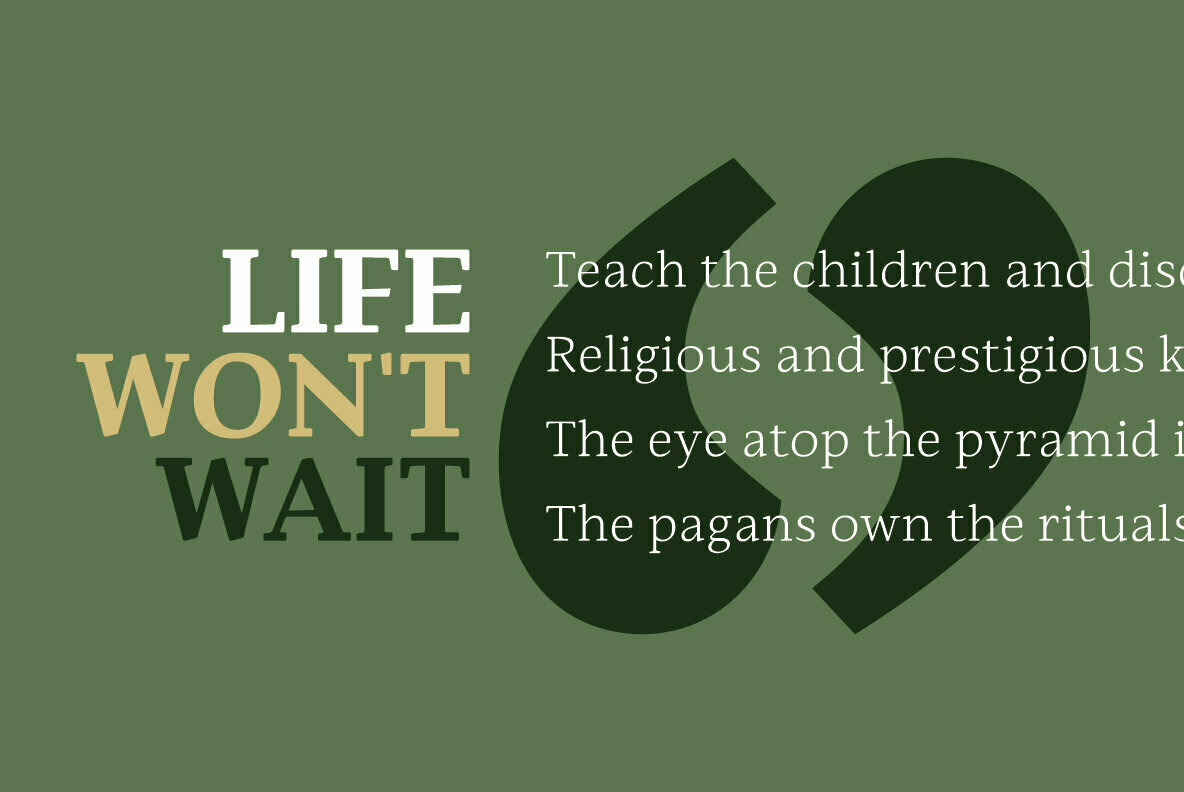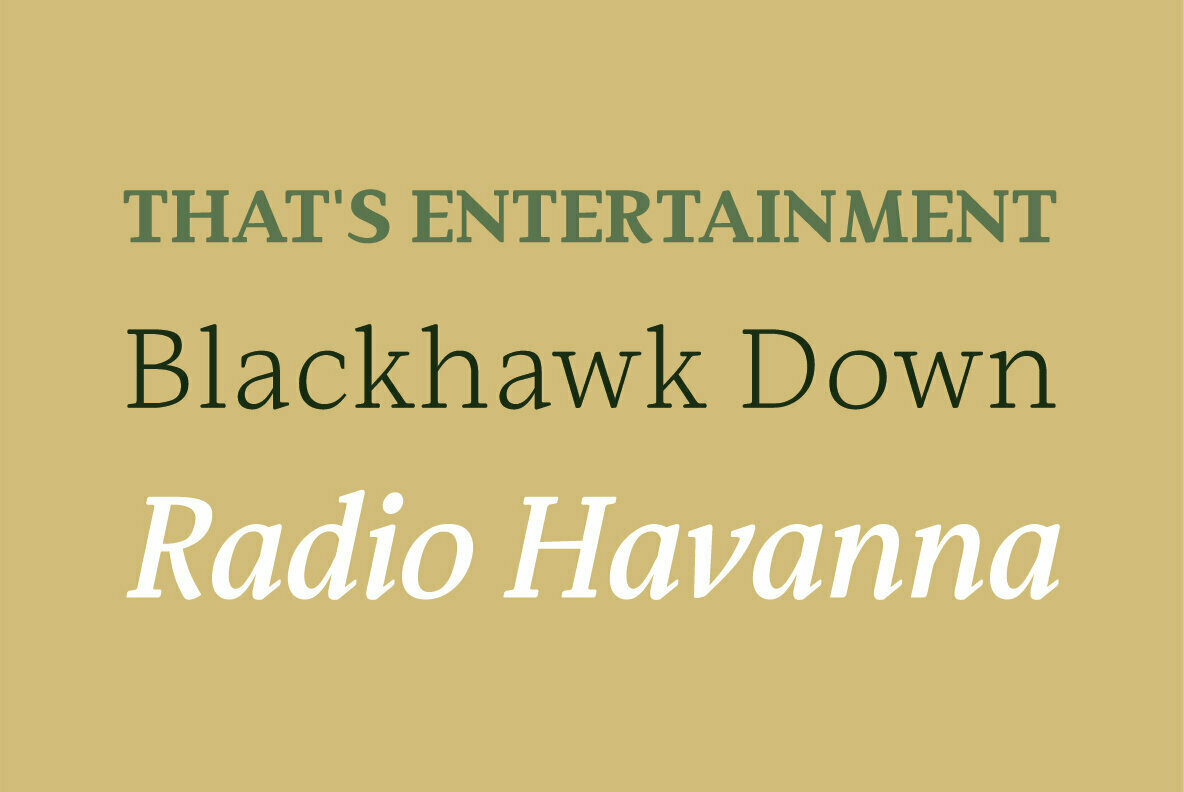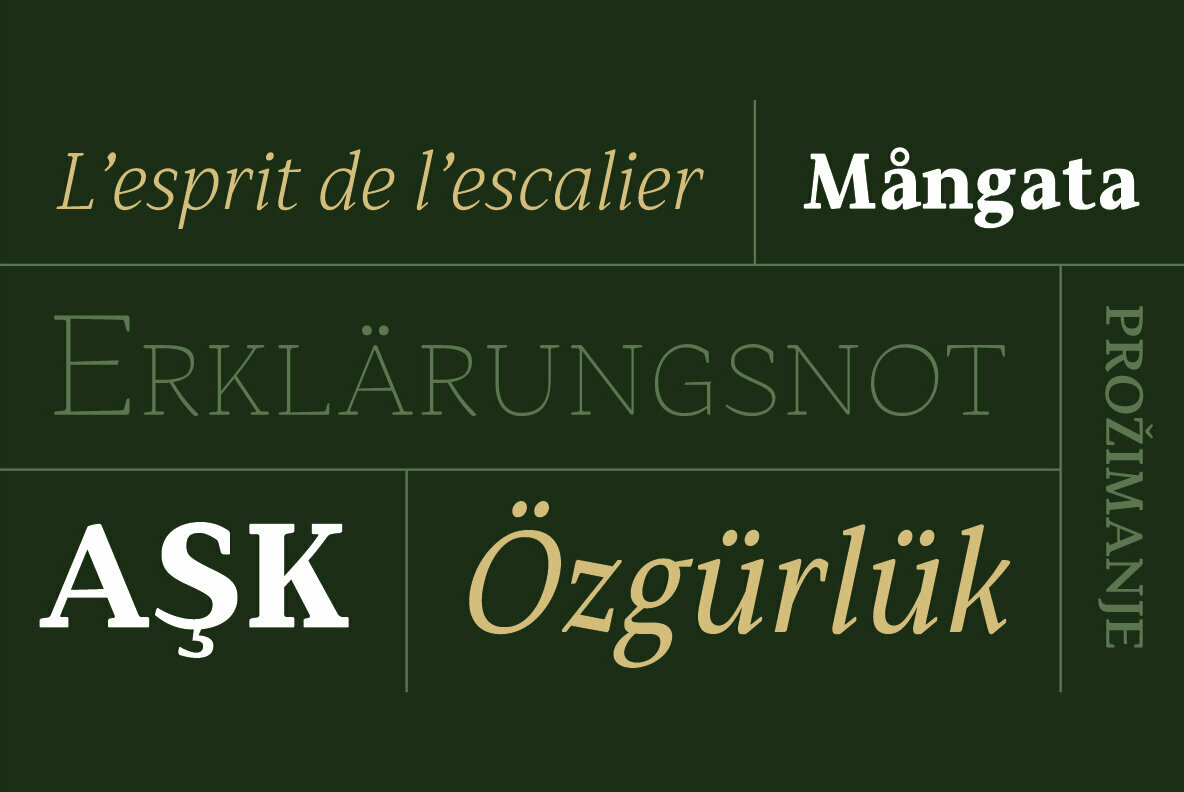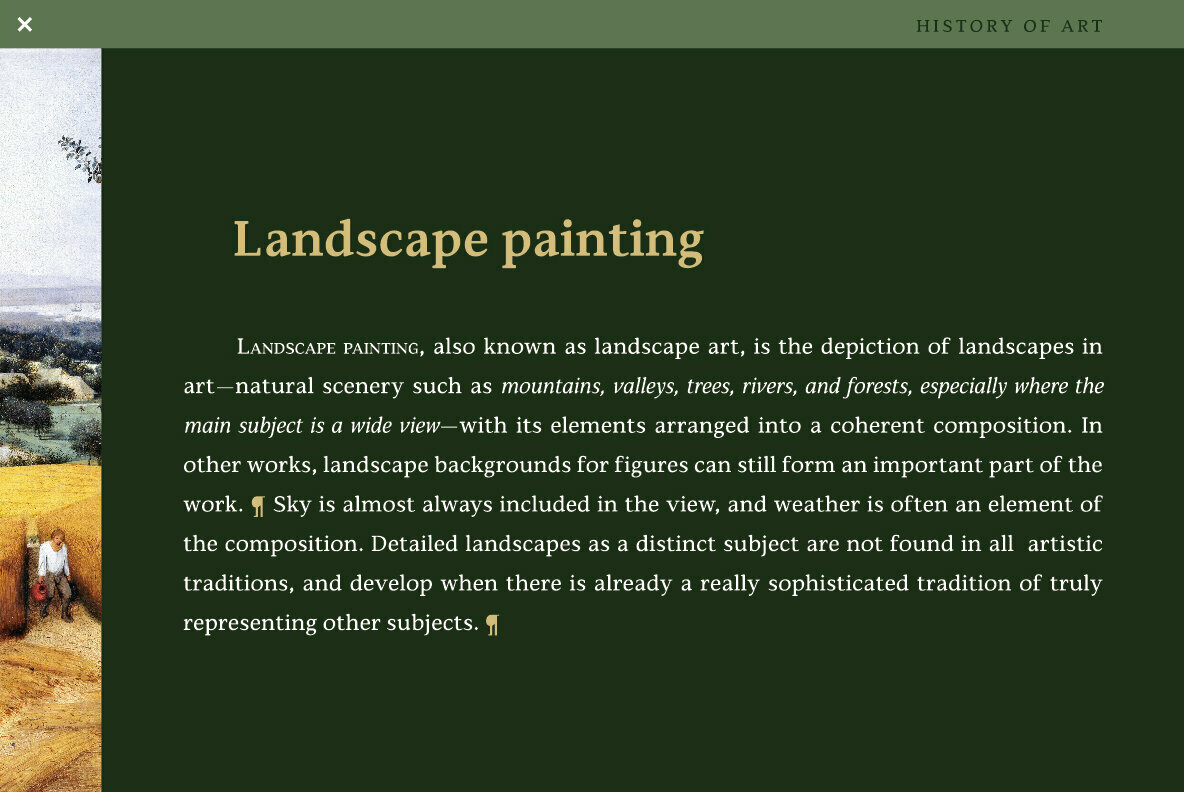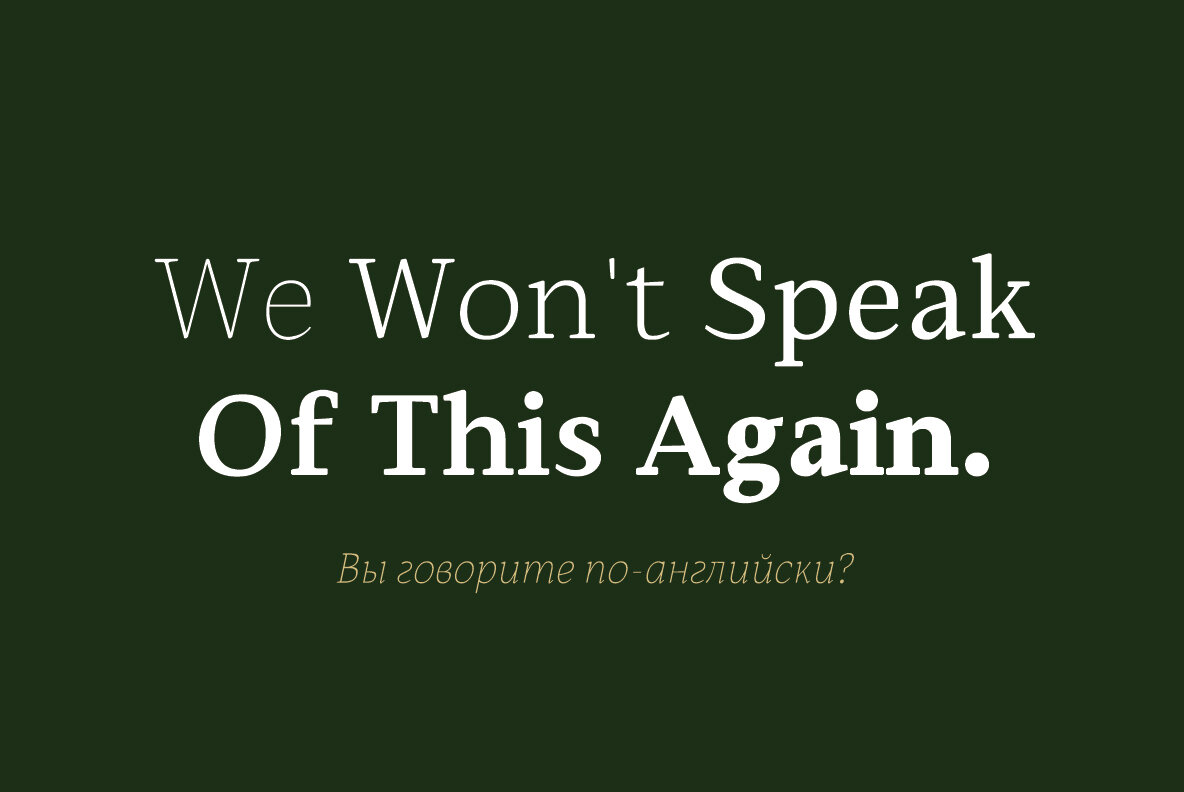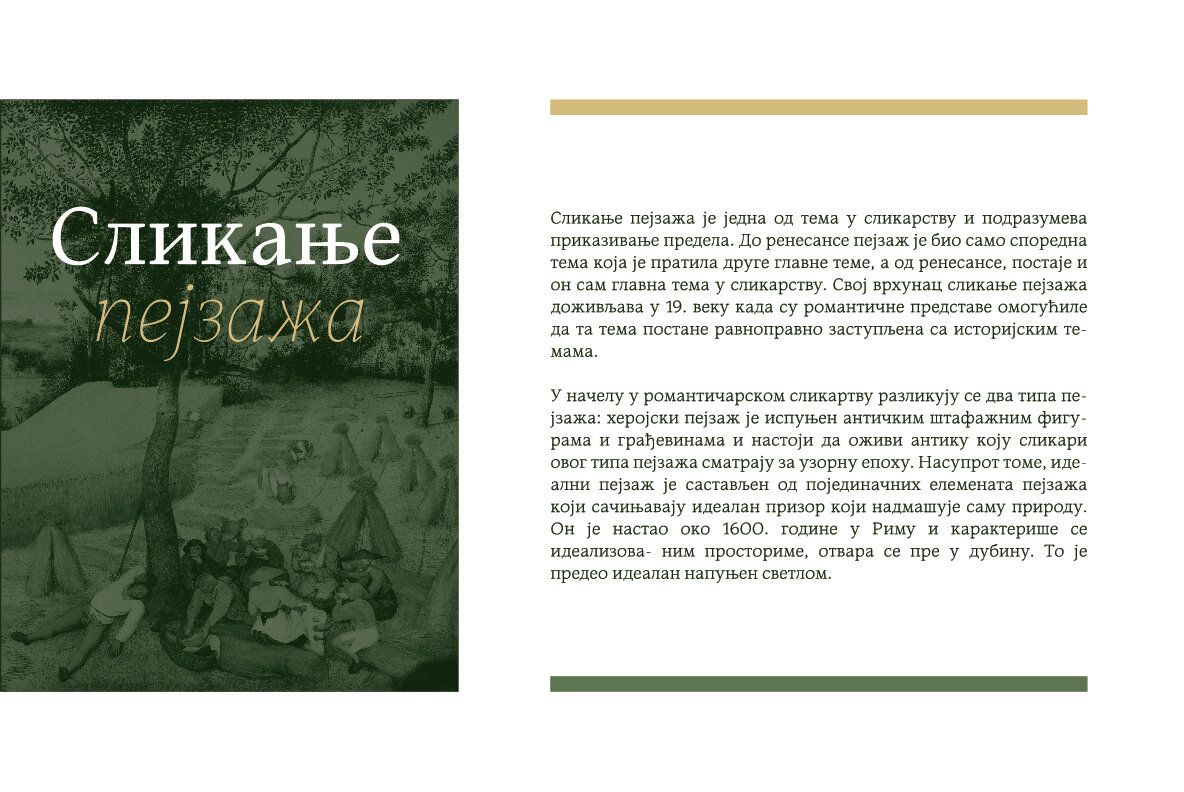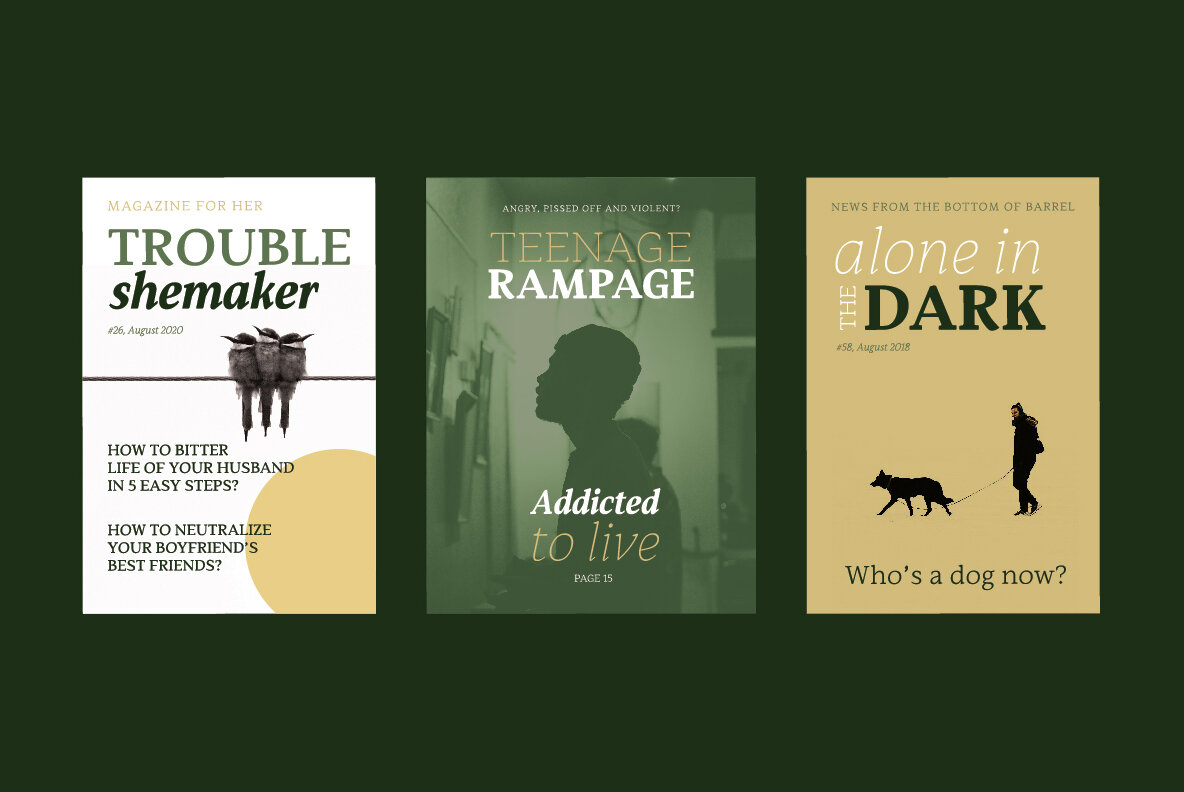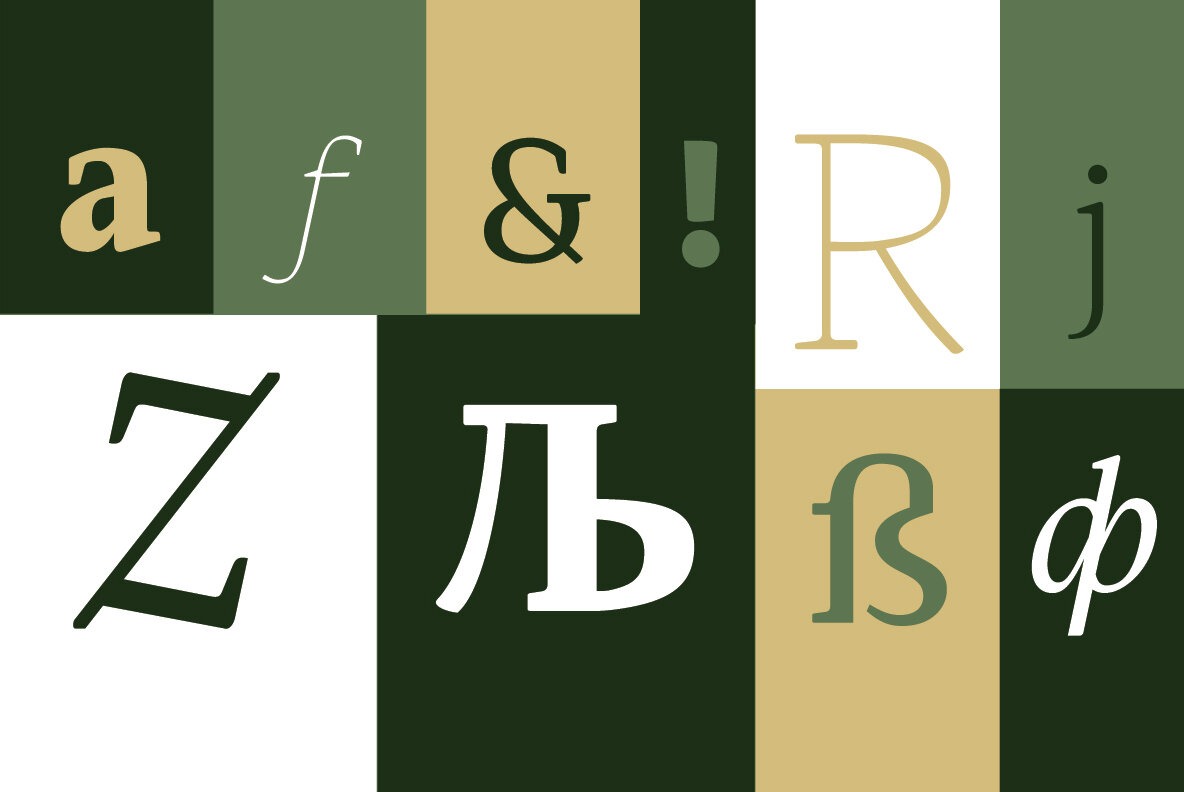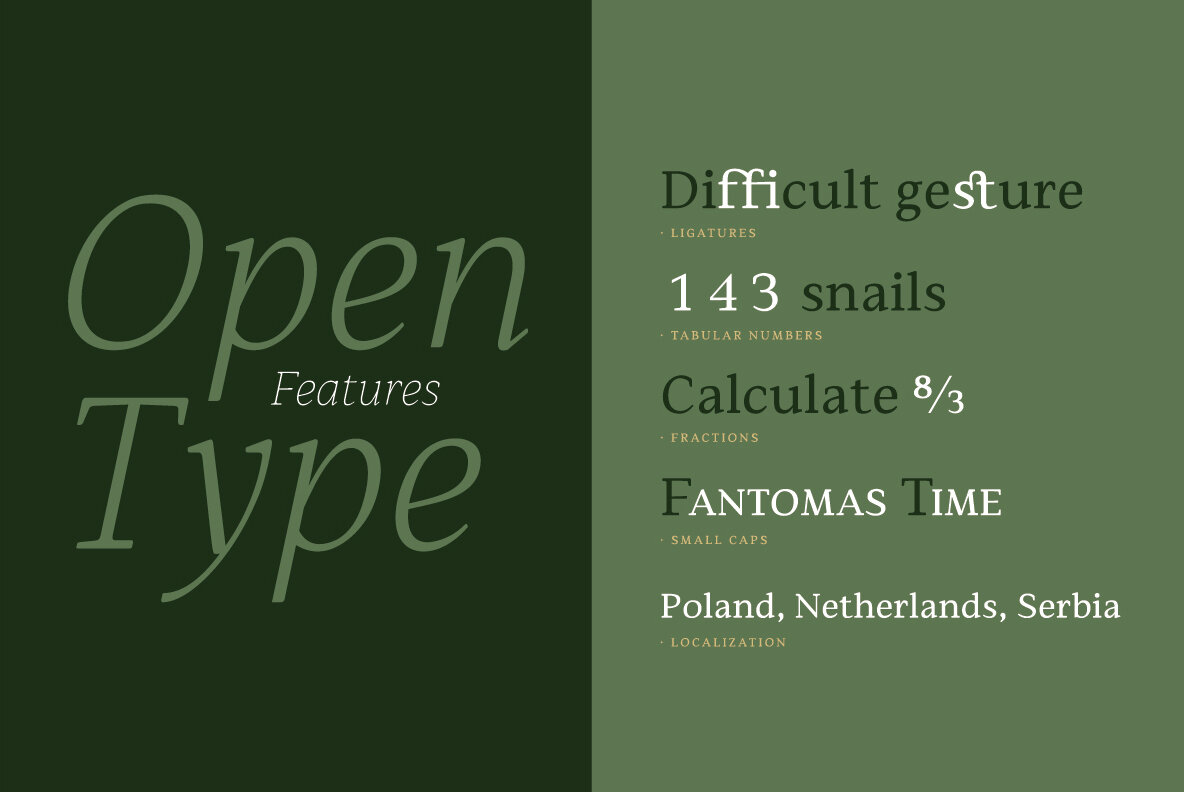
Hartia Font
Hartia is modern serif family designed to be tireless worker (aka workhorse) for all situations – from small size texts in different editorial situations to main webfont usage. Designed with asymmetric serifs in 5 weights and 5 true Italics, Hartia is gently different and enough recognisable to deserve attention for any serious project. With slightly taller x-height, Hartia comes with OpenType features (ligatures, tabular numbers, fractions, small caps and localisation for Poland, Netherlands and Serbia). It is fully packed for Latin language support and equipped with Russian Cyrillic as default Cyrillic set (with previously mentioned localisation for Serbia).